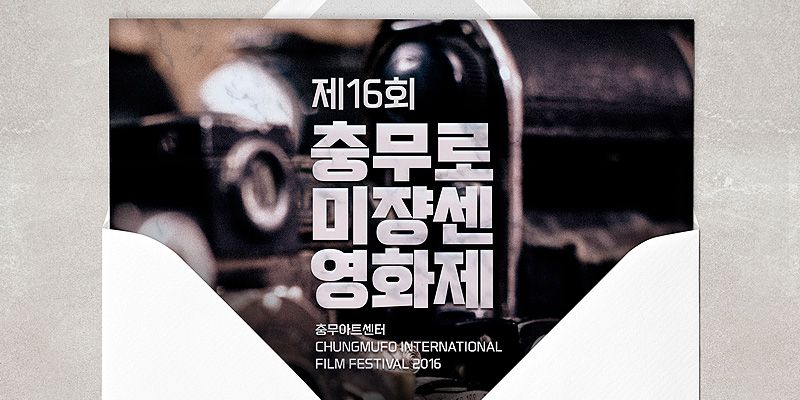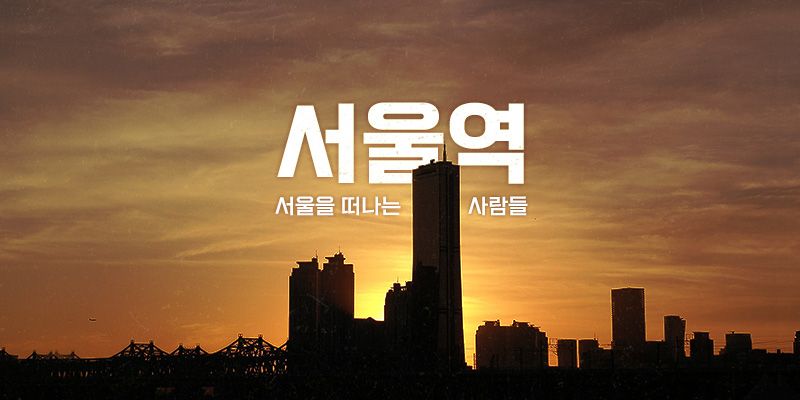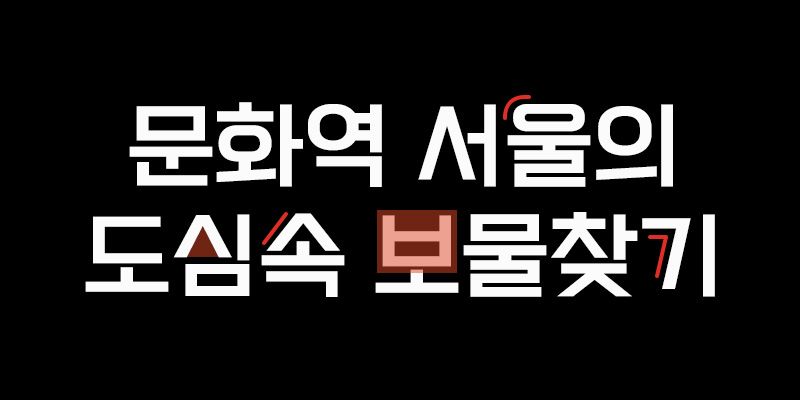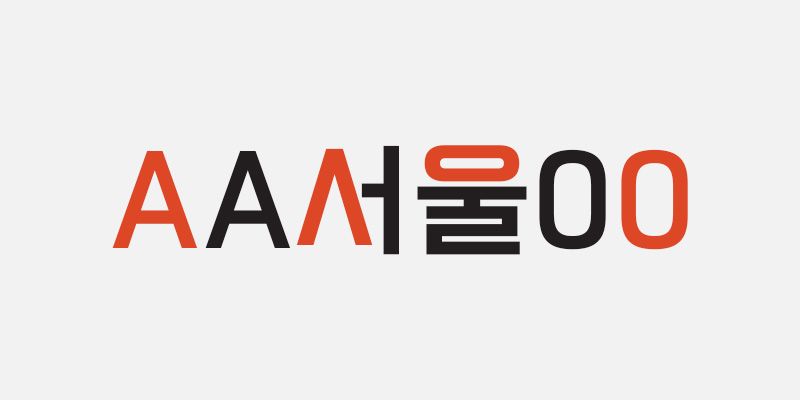
RixSeoulStation is a retro and classy typeface. Its motif was brought from the tall structures as Seoul N Tower, to make symmetrical lines to enhance attractiveness.